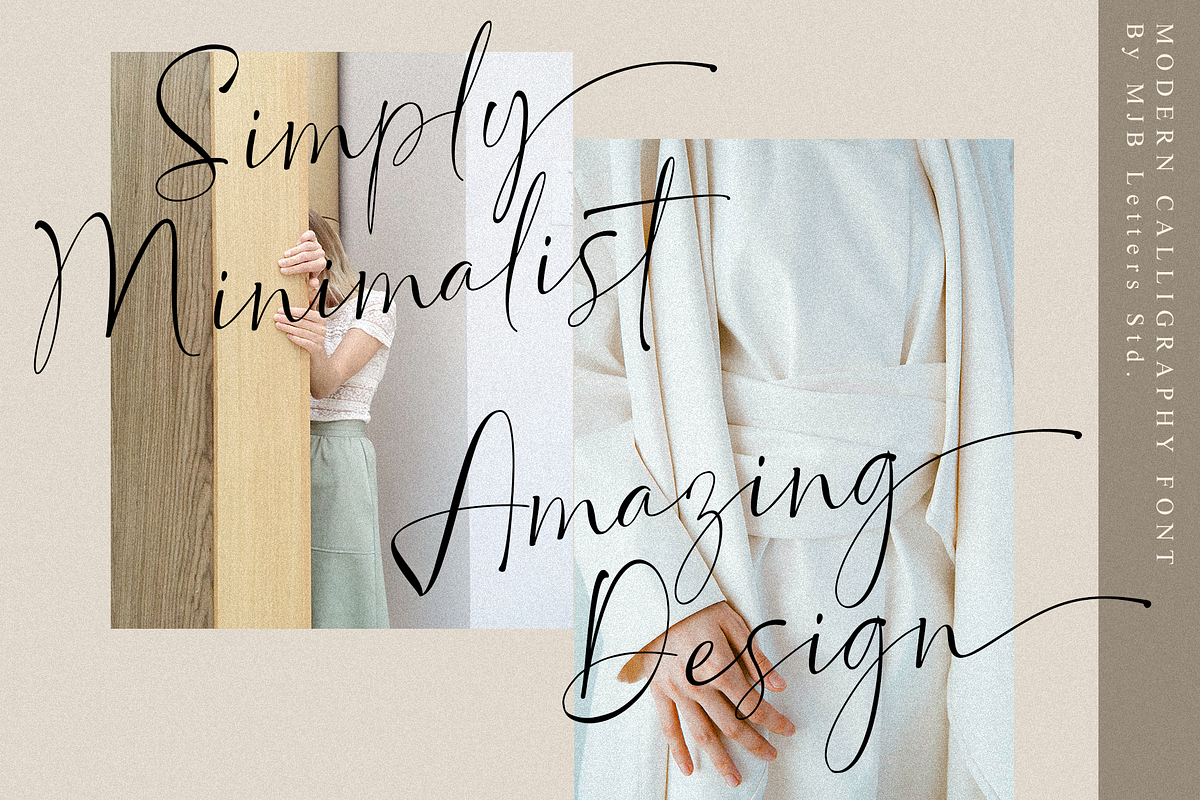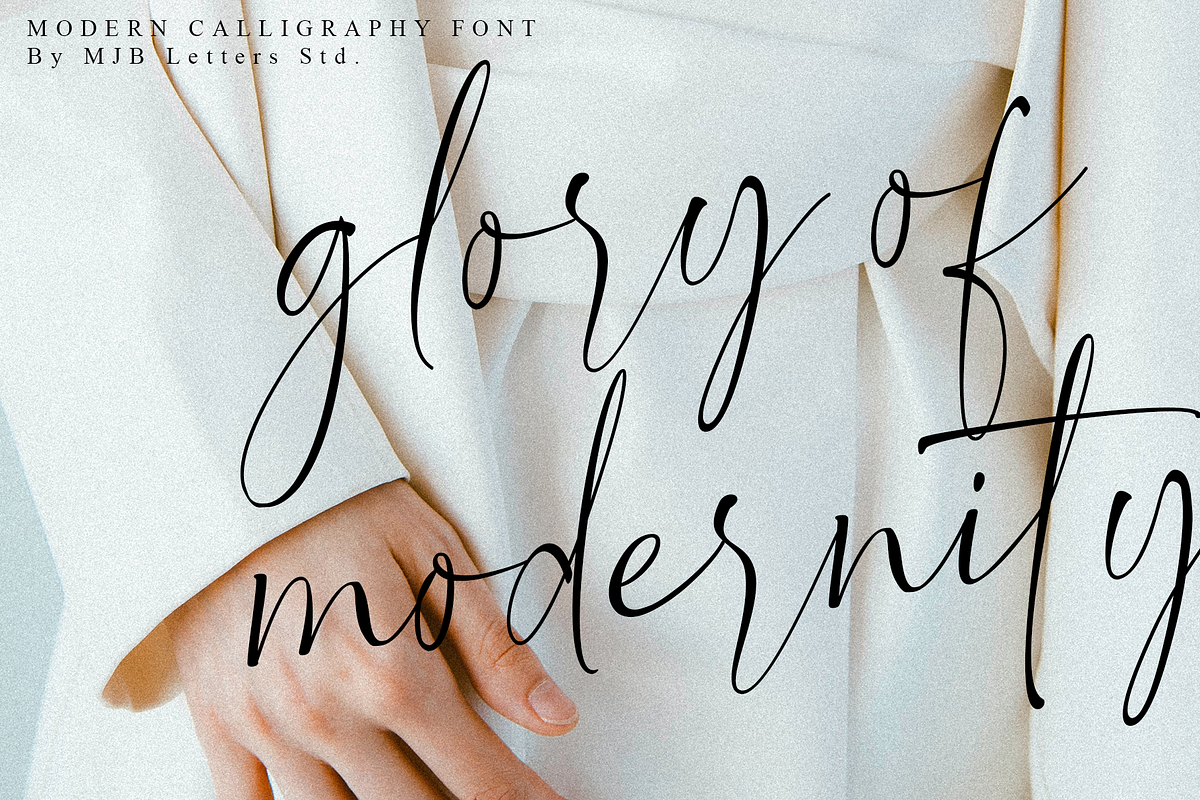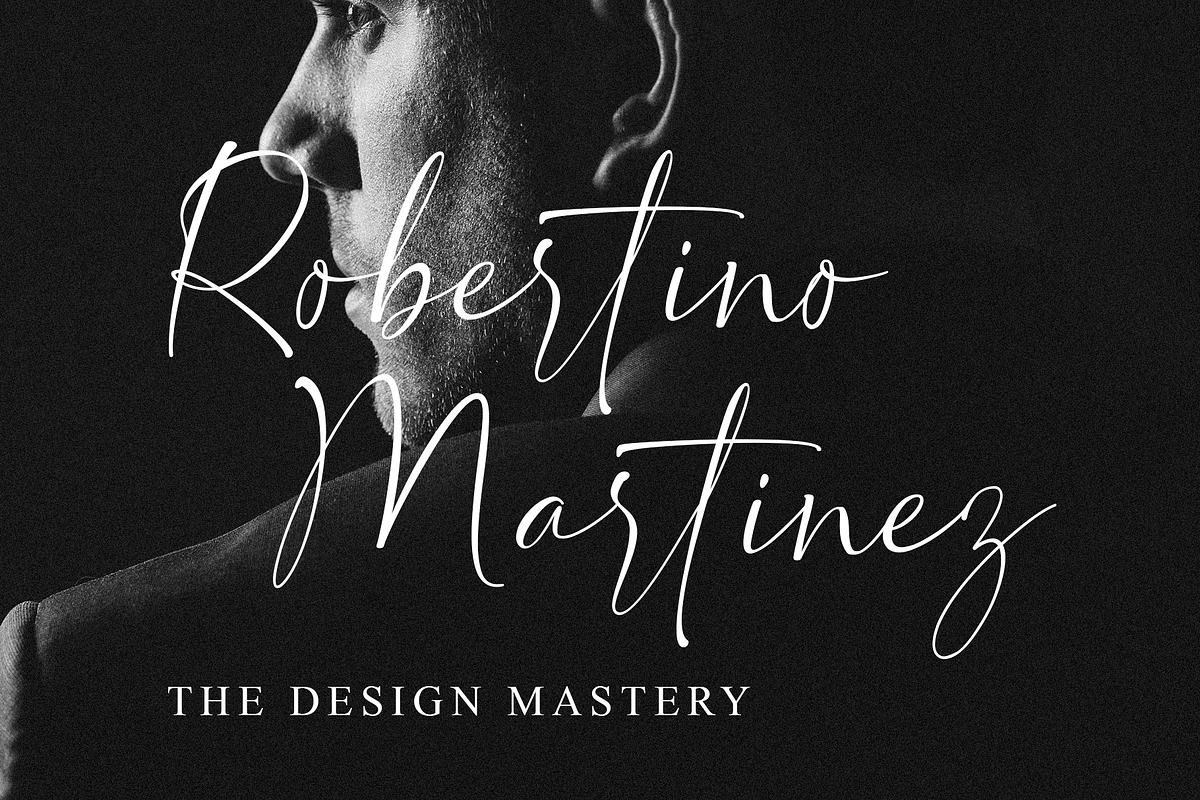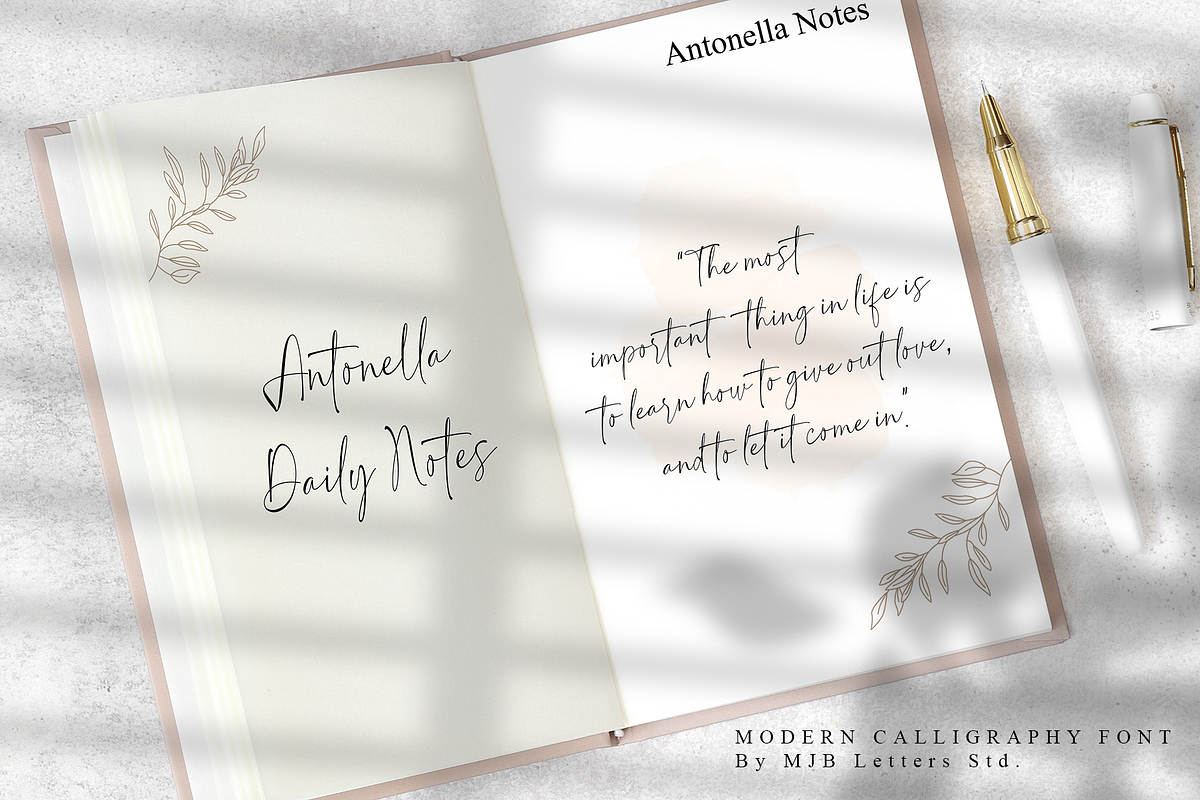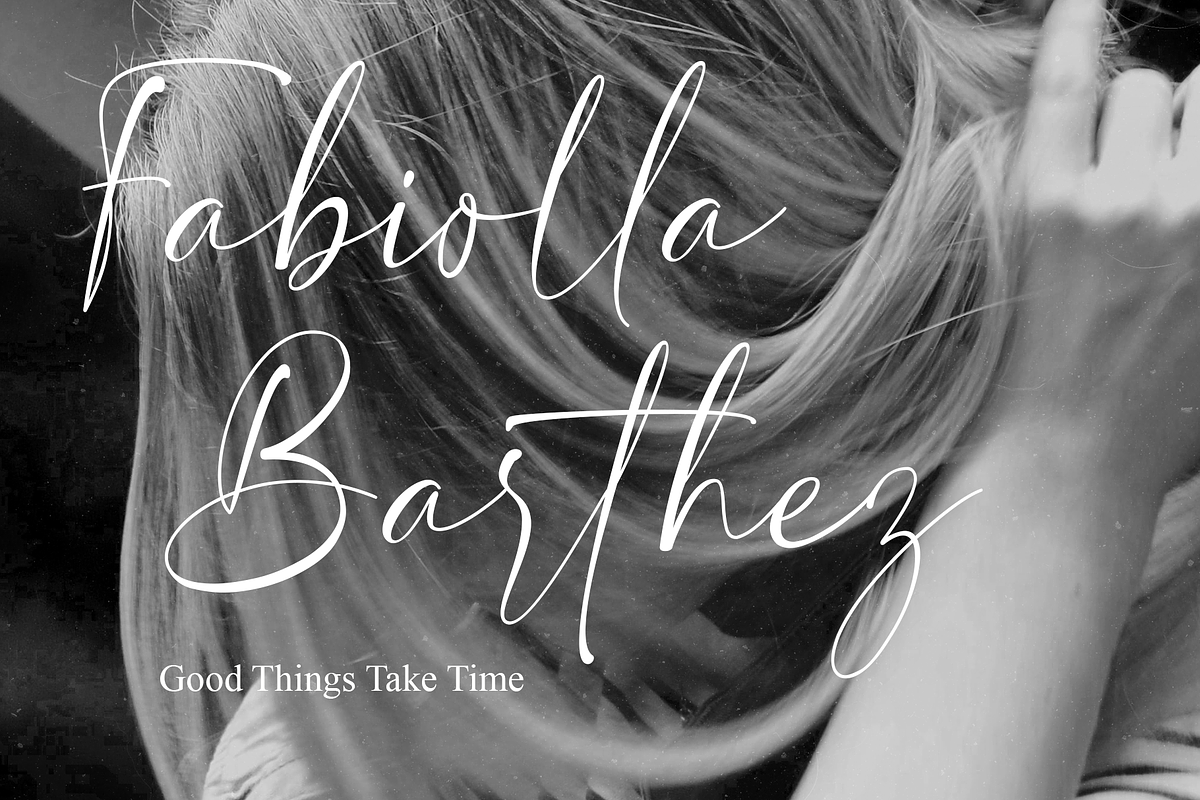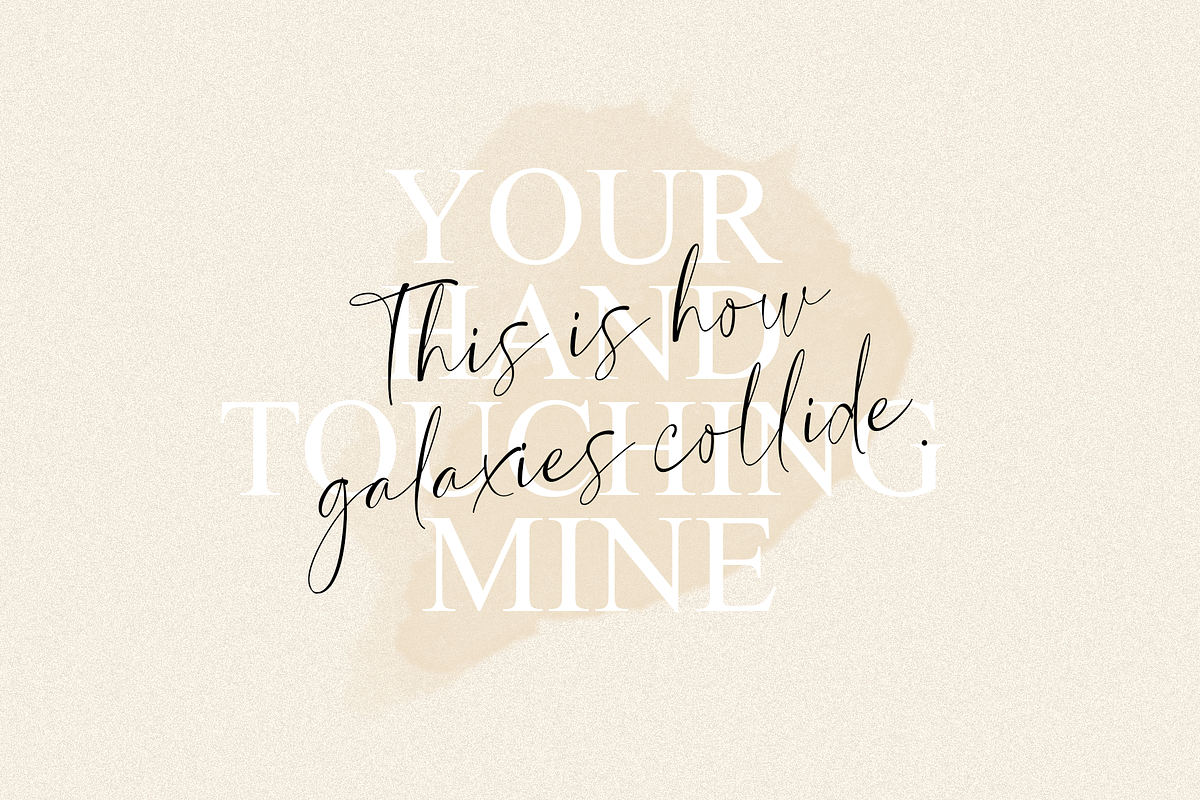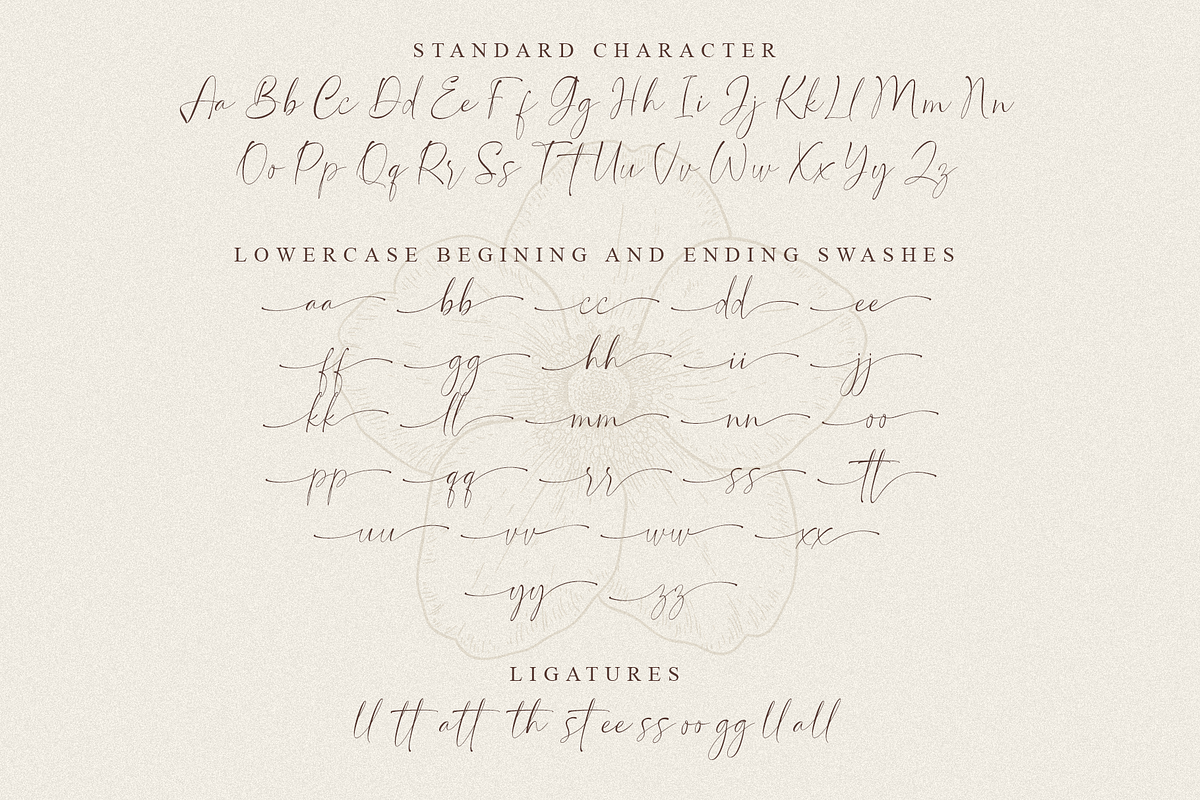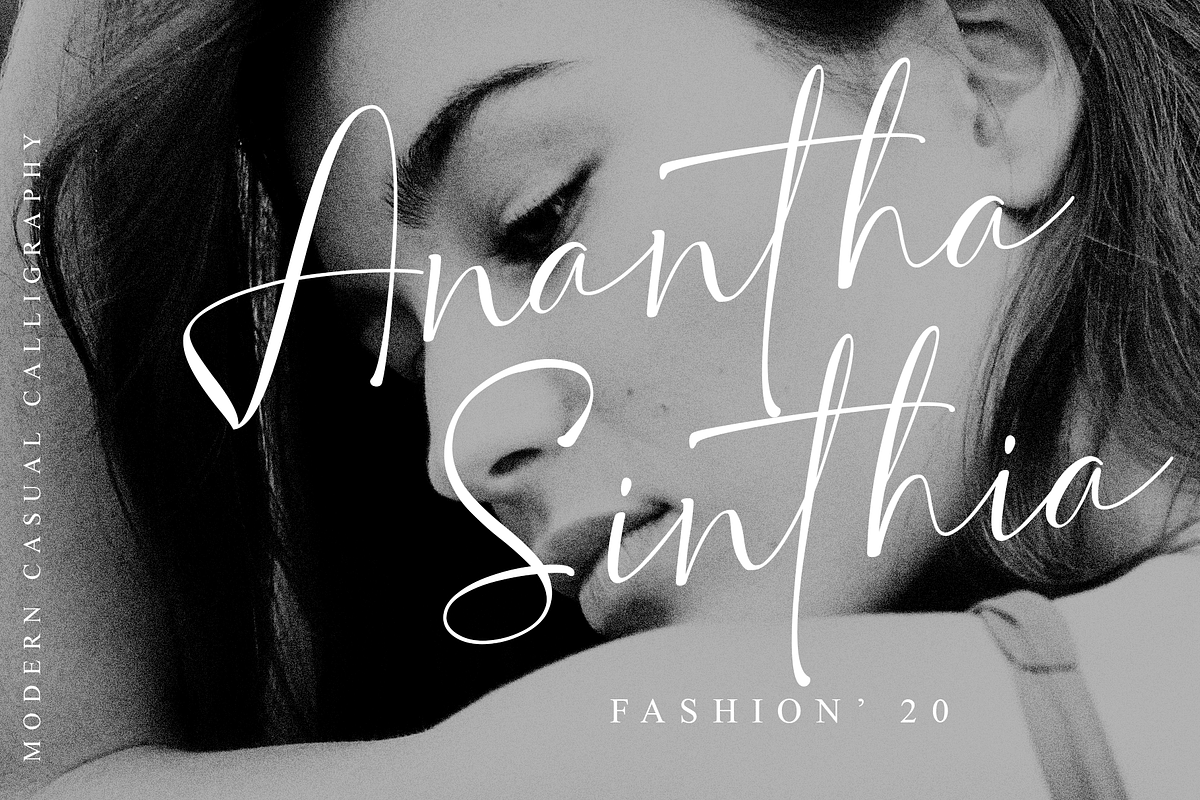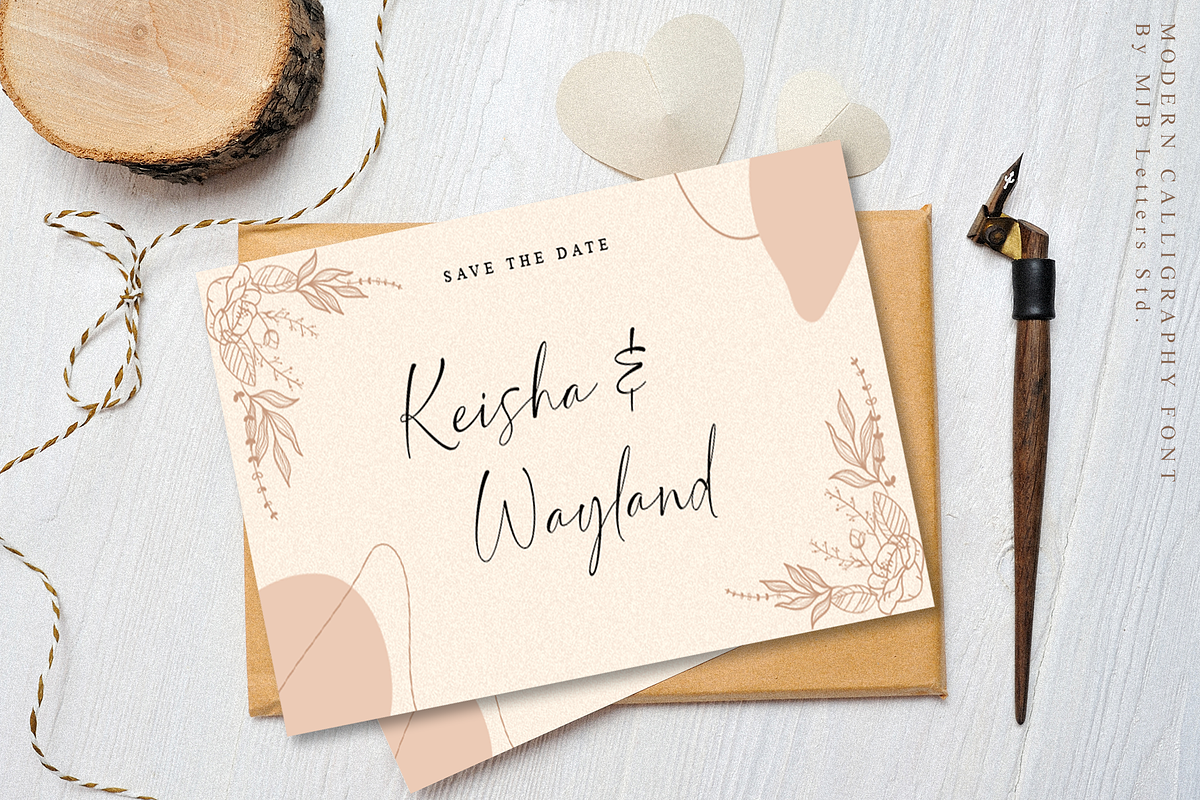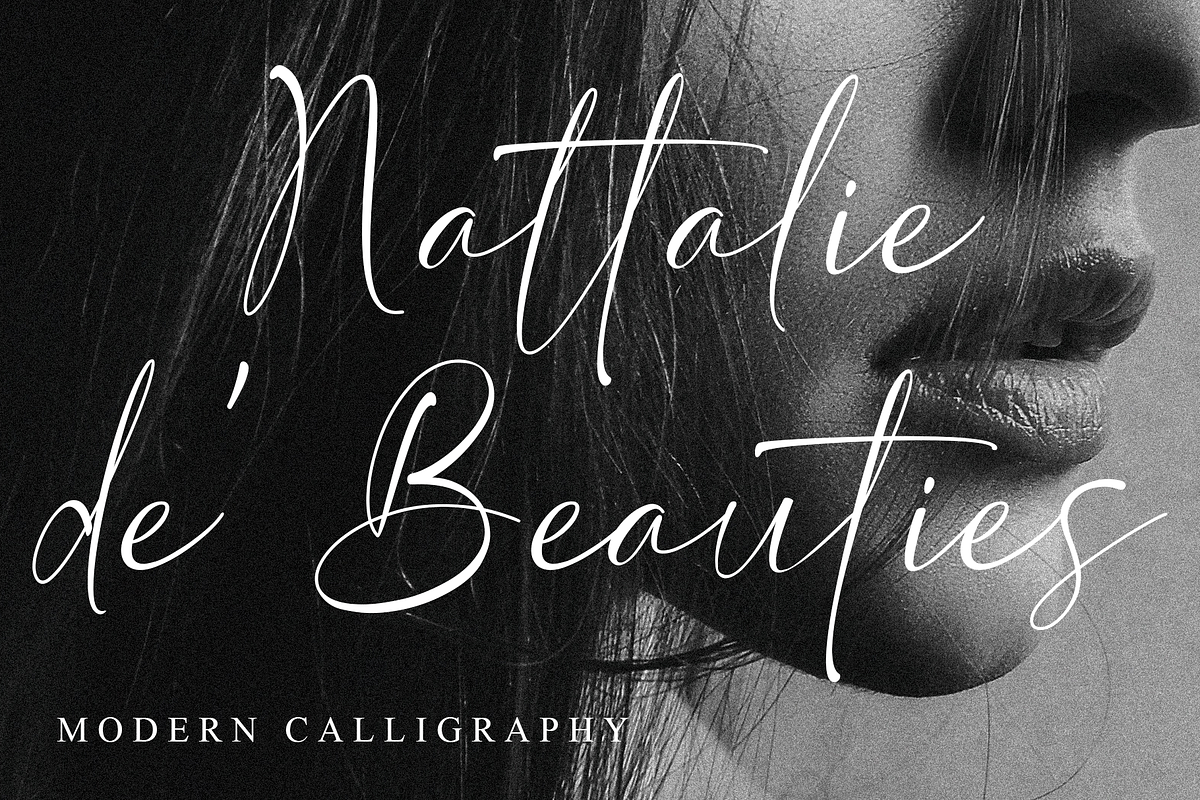
Sophia Morgant - Casual Handwritten
Sophia Morgant is a modern and stylish calligraphy font with naturally thick and thin motifs. It is perfect for branding, wedding invites, posters and others.